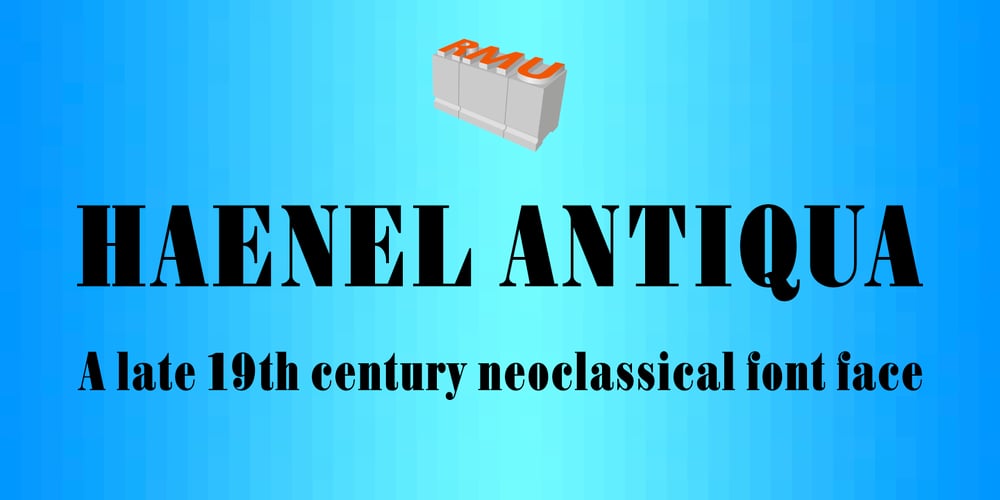
Haenel Antiqua Font Family was designed by Ralph M. Unger and published by RMU. Haenel Antiqua contains 1 styles and family package options. This narrow neoclassical revival is based upon a font released by the Haenel Foundry, Berlin, in the 19th century.By typing [alt] + p respectively [alt] + b you have access to a framing element as it can be seen on the posters. By using the OT feature stylistic alternative you can change the normal numbersign into an oldstyle numero sign.